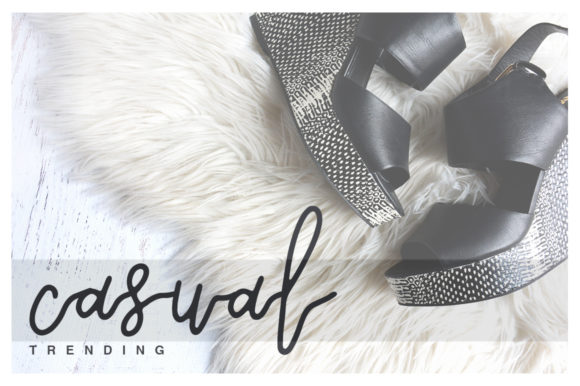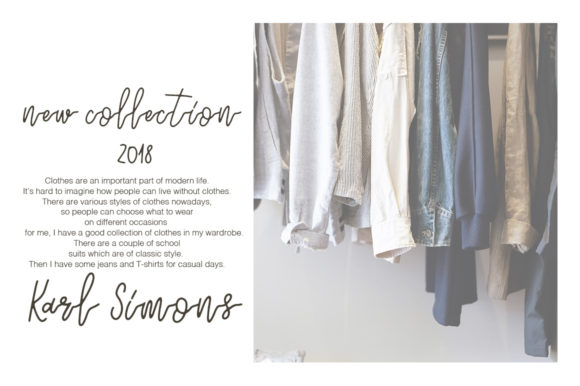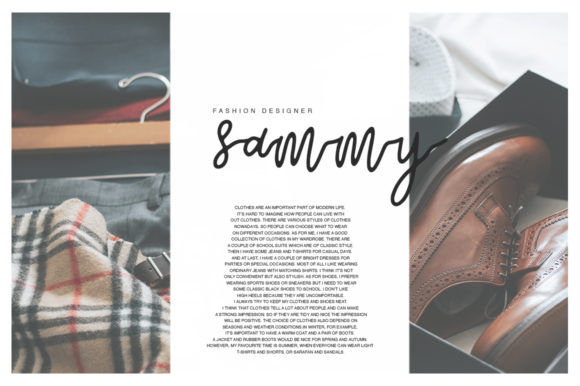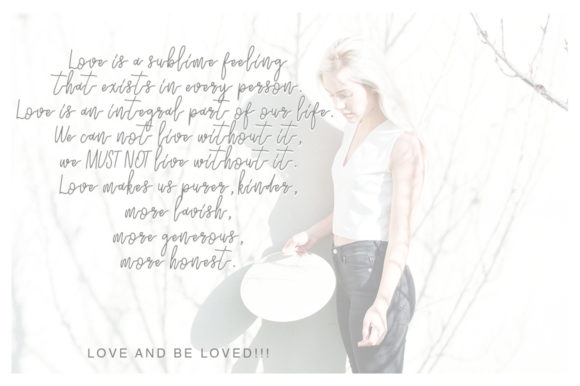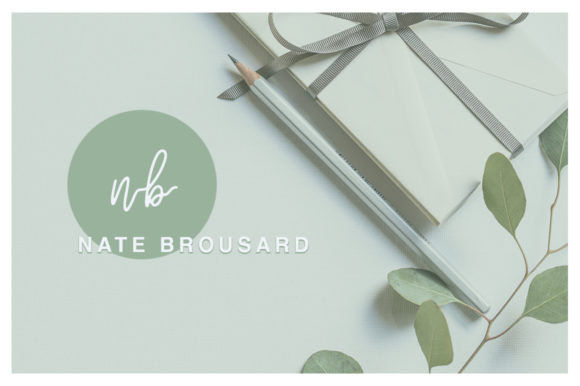
HomeScript FontsSilvia One Love Font Script Fonts Silvia One Love Font FacebookXPinterestWhatsApp Silvia One Love Font Poster 2 Silvia One Love Font Poster 3 Silvia One Love Font Poster 4 Silvia One Love Font Poster 5 Silvia One Love Font Poster 6 About Silvia One Love Font Silvia One Love is a sweet and cool script that will add a personal feel to any design idea! DOWNLOAD ON CREATIVE FABRICAThis font is sold and delivered by Creative Fabrica. Font Canyon may earn a commission if you buy through this link. People also explored Coco Font Mighty Side Font Jasmine Estella Font Lakhapati Font Valentine Signature Font Callista Font Hilliant Font Garmisch Script Font Margaret Font 335 0 TagsSilvia One Love Font Previous articleTuesday Sush FontNext articleFelicita Font LEAVE A REPLY Cancel reply Comment: Please enter your comment! Name:* Please enter your name here Email:* You have entered an incorrect email address! Please enter your email address here Website: Save my name, email, and website in this browser for the next time I comment. Personal Use Free Time for Presents Personal Use Free Read more about this font Astercla Personal Use Free Read more about this font Velasco Personal Use Free Read more about this font Heart Memory Personal Use Free Read more about this font BLOG Free vs Paid Fonts: Why Investing in Premium Fonts Is Worth It Free vs Paid Fonts: Why Premium Fonts Are Worth It in 2025 The debate of free vs paid fonts continues in the design world. While... Where to Buy American Fonts Online in 2024 How to Install and Use Fonts on Windows, macOS, and Web Projects Exploring Font Trends